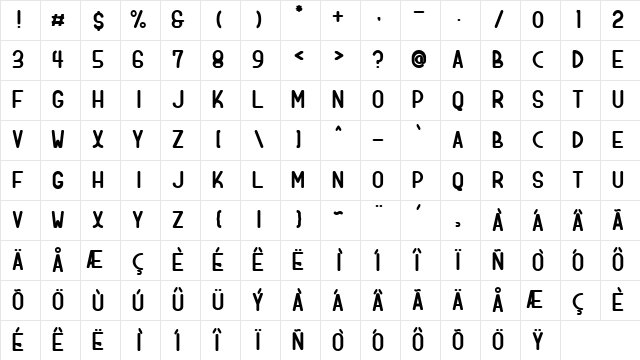
DOLOGAN bold is a composed and adaptable typeface that performs quietly and consistently across a wide range of design contexts. Its bold stroke weight gives it real presence on the page.